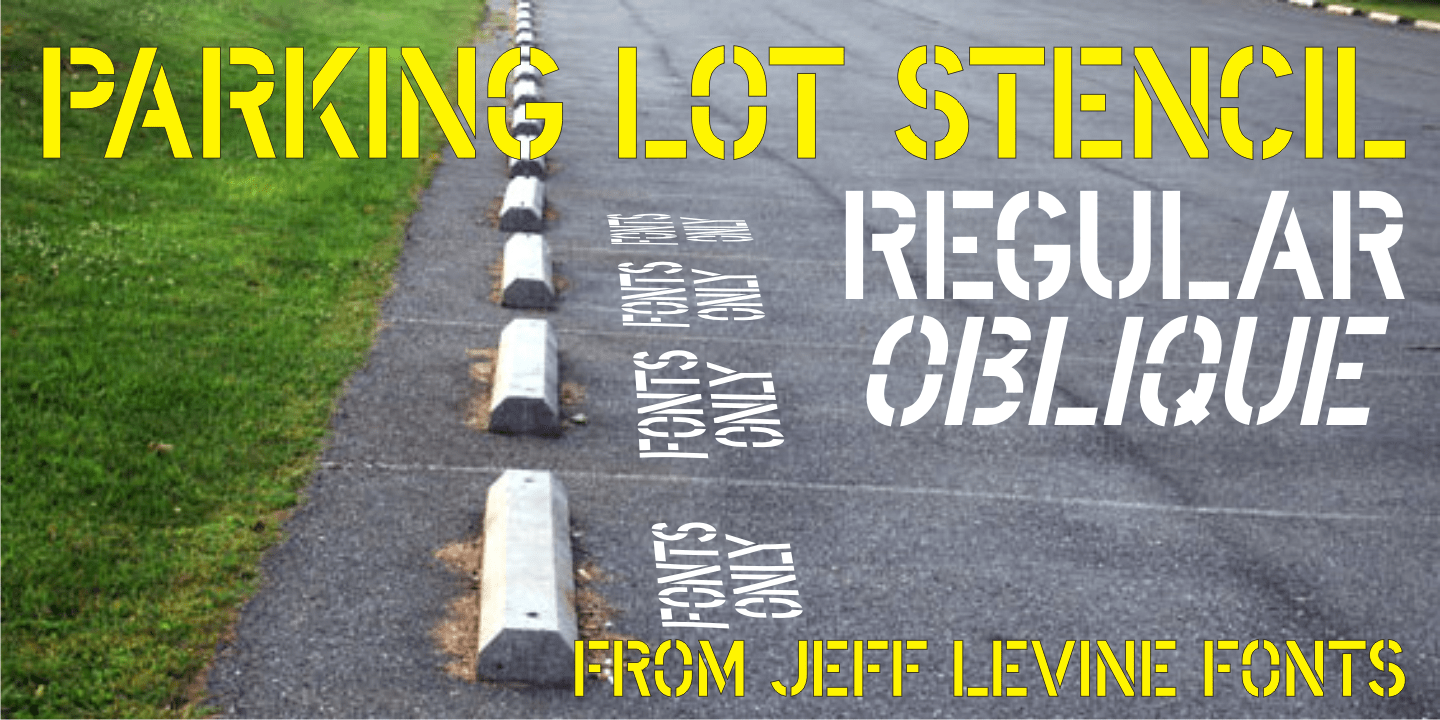
Parking Lot Stencil
At first glance Parking Lot Stencil JNL look quite similar to many sans stencil fonts, but rest assured there are numerous subtle nuances that give the typeface its own unique flavor.
Modeled after the plastic stencils used for marking numbers and directional information on paved surfaces, the lettering is clean yet industrial.